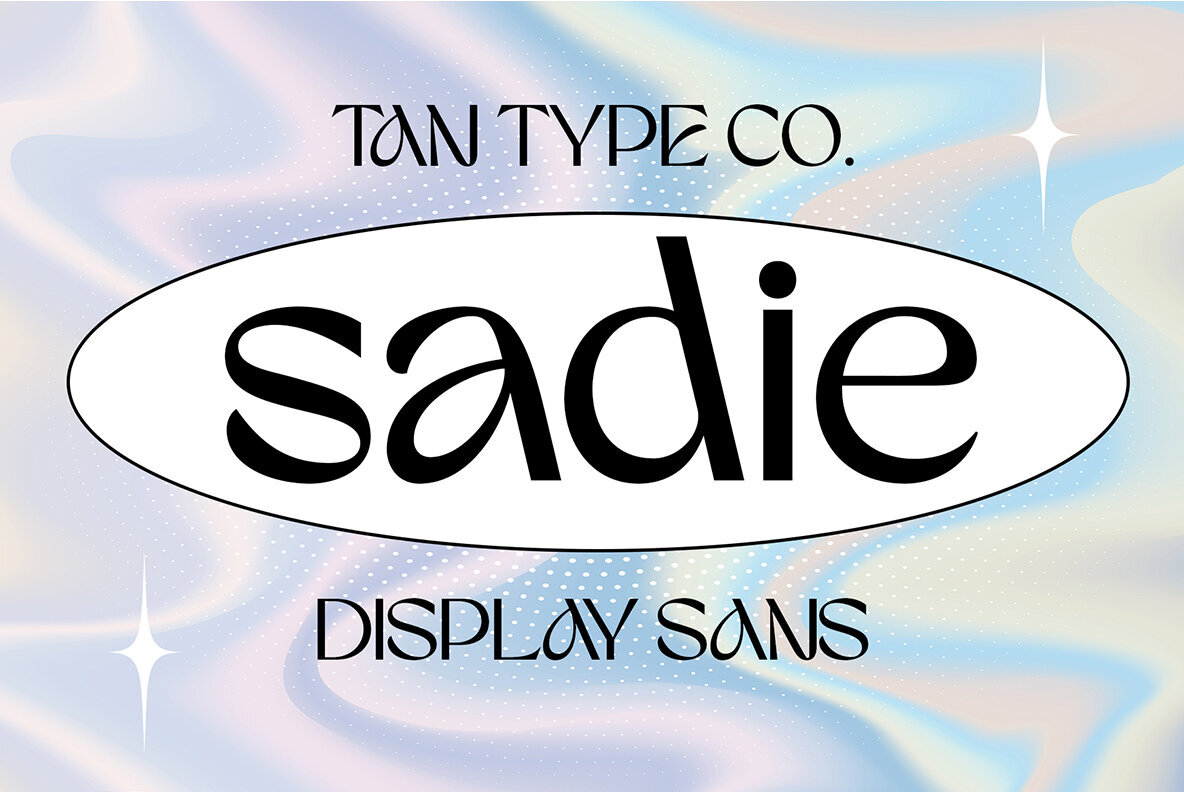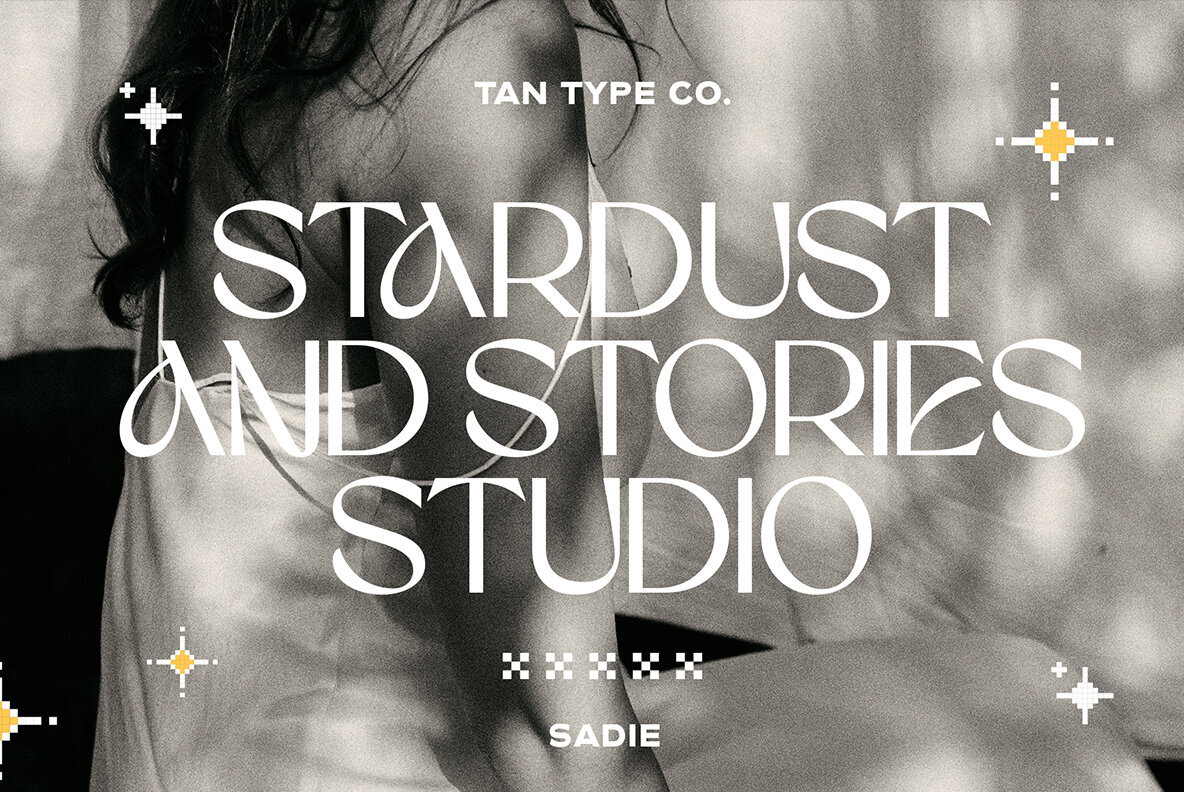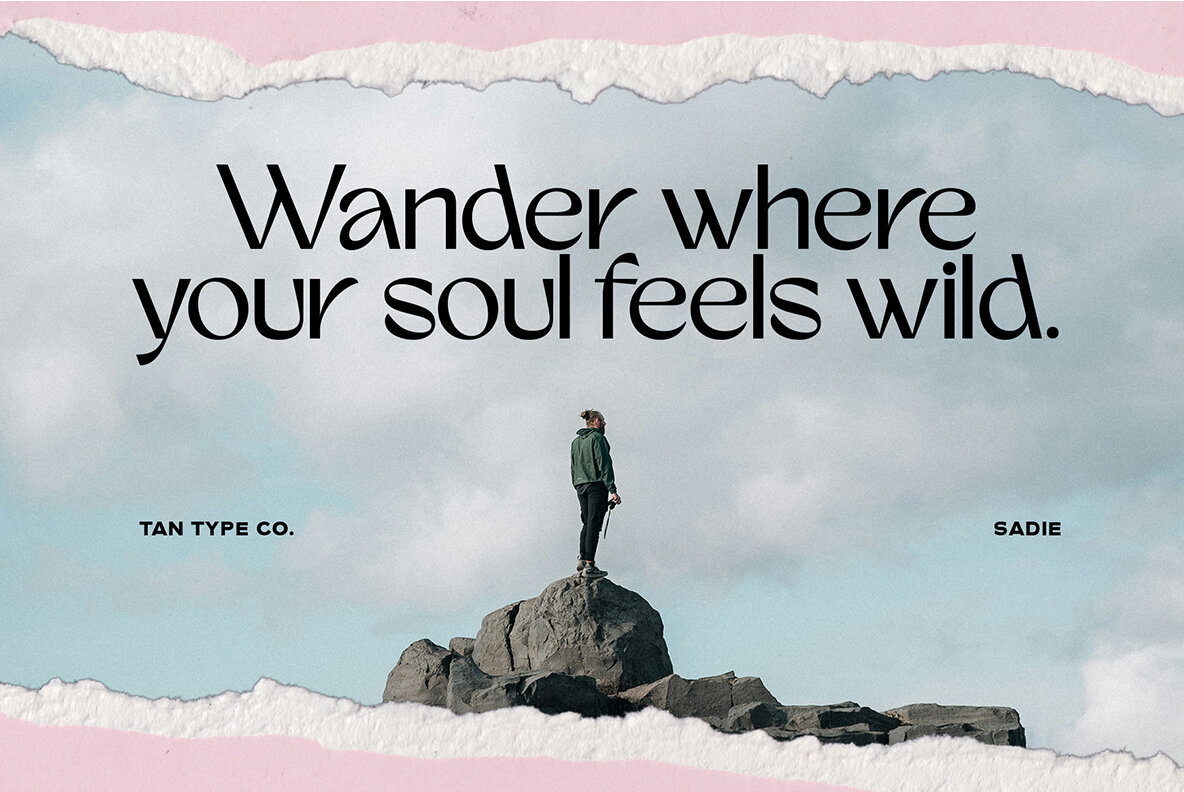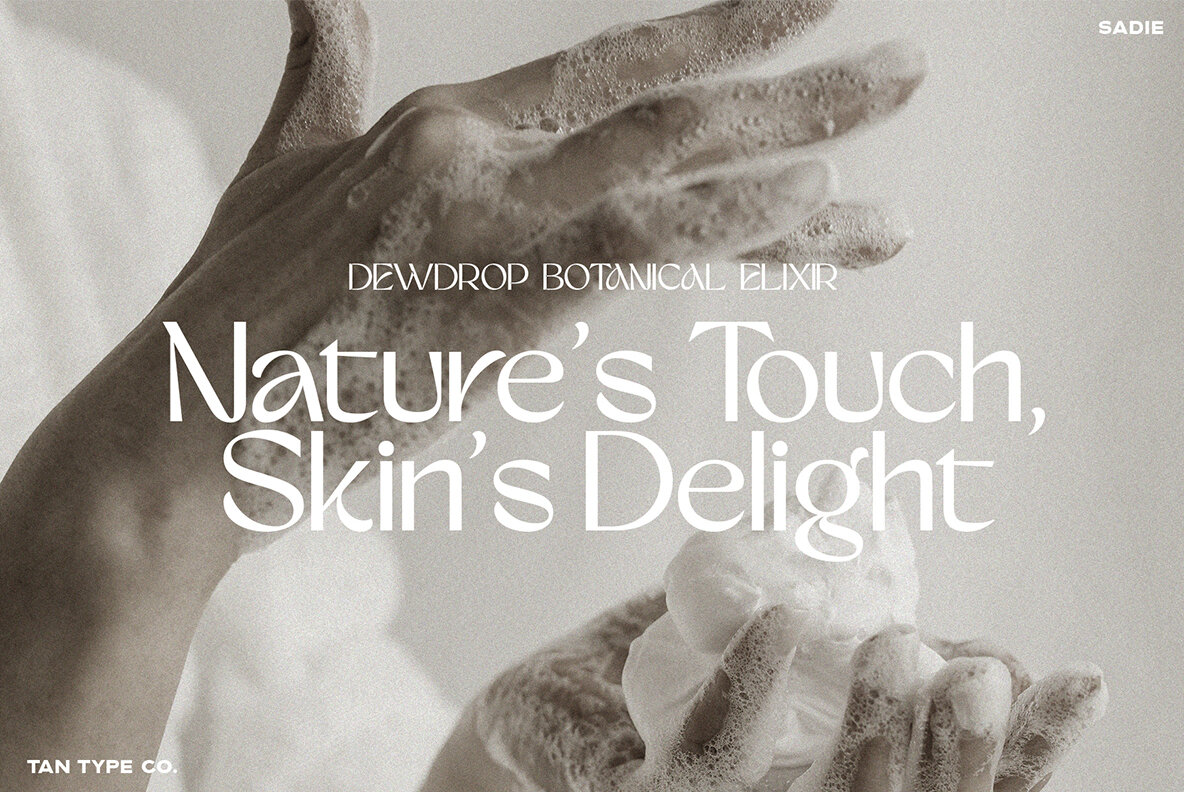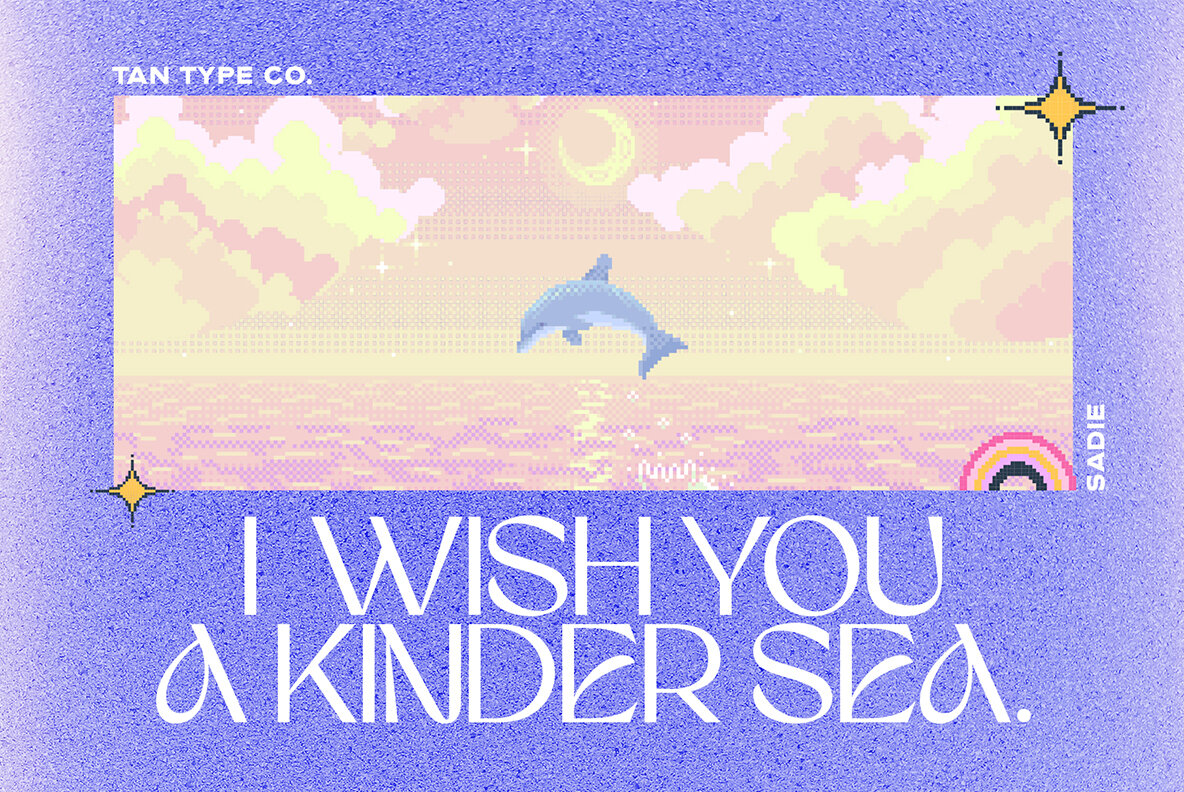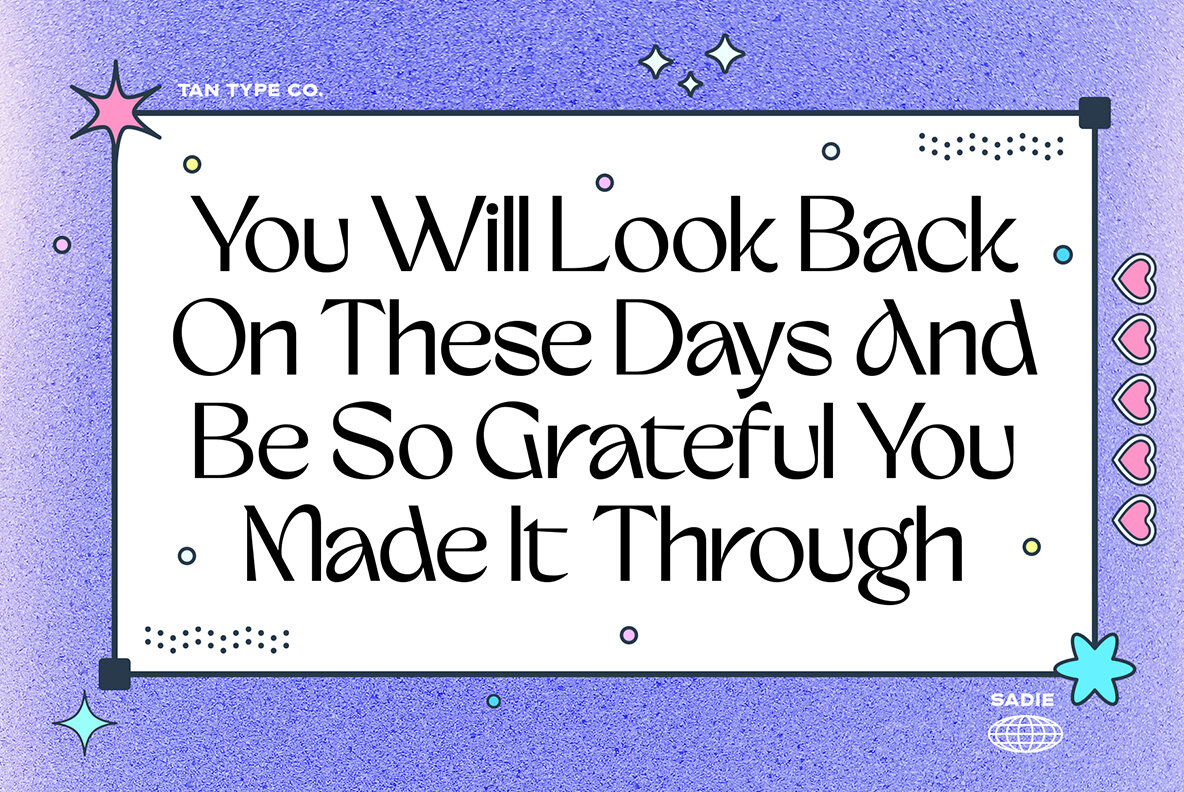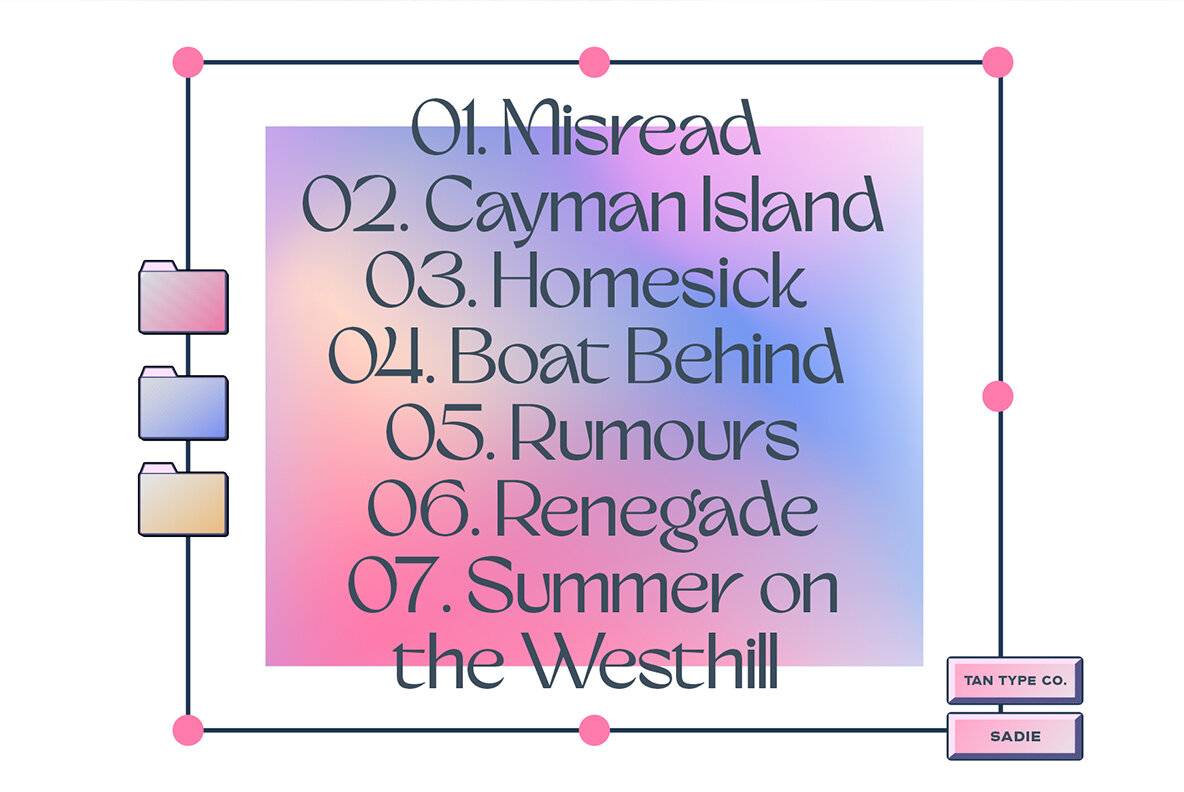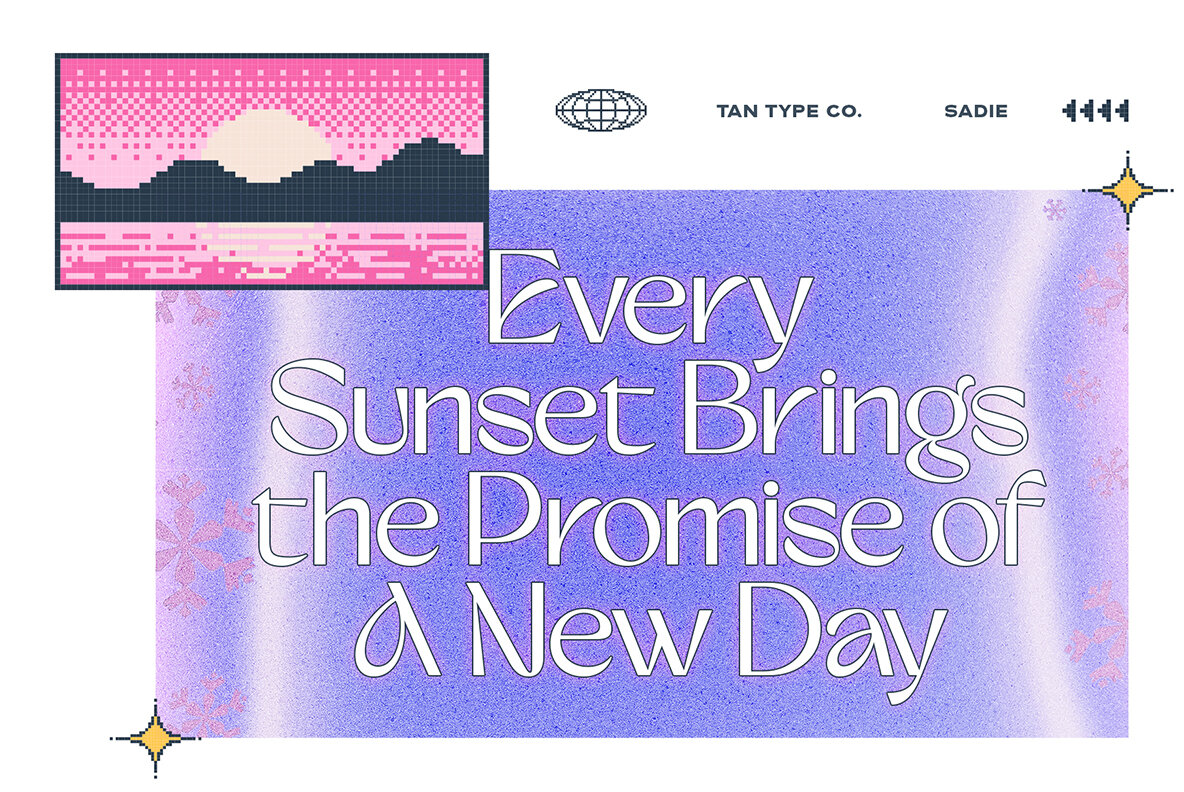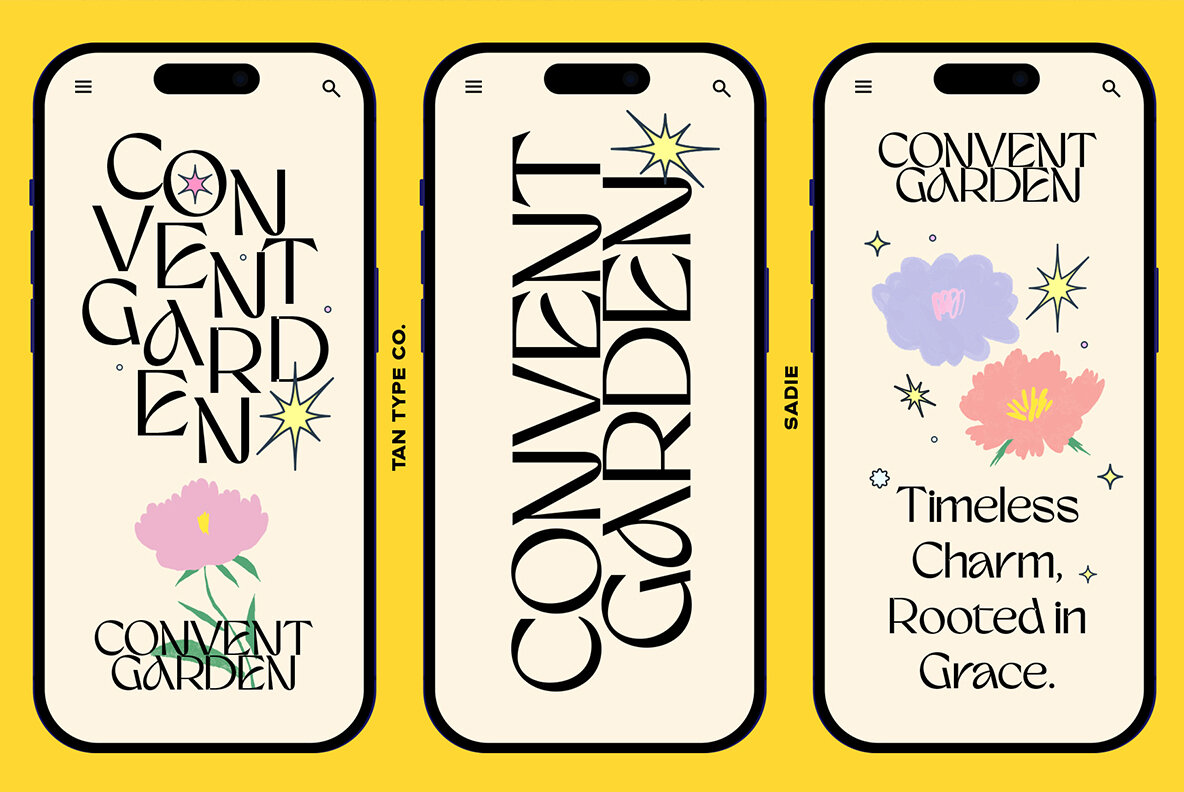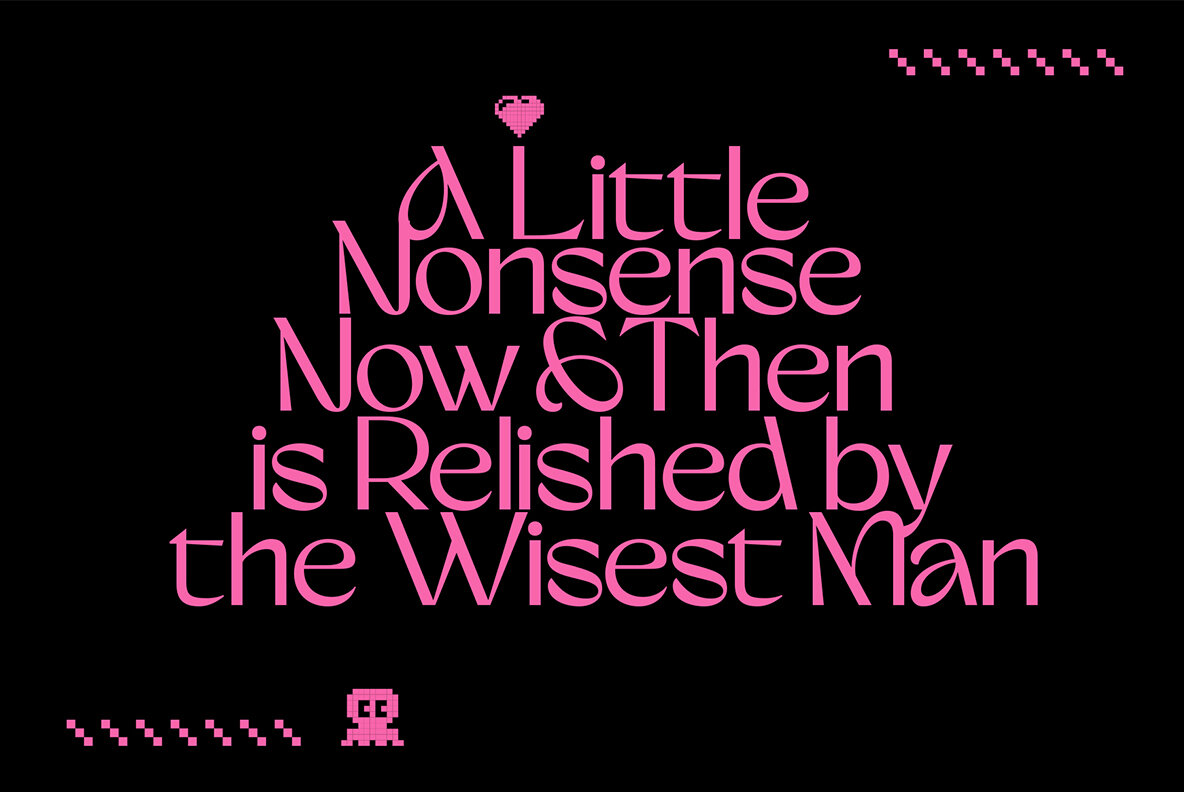
TAN SADIE Font
TAN SADIE Regular
Sadie is a laid-back sans serif font exuding a fresh, clean vibe. Recognized for its simple shapes and smooth lines, it remains remarkably easy to read, with subtle twists adding just the right amount of personality. Ideal for labels, cards, and signs, Sadie offers a neat, friendly look that effortlessly captures the essence of summer—like a cool breeze on a warm day. This font strikes a perfect balance, being neither too fancy nor overly simplistic, with a hint of quirkiness for added charm. Whether crafting by hand or designing digitally, Sadie lends a cheerful touch without overshadowing your creation. Our fonts are compatible with most design software. Ensure your platform supports OpenType fonts to access all ligatures. Please note, while our font functions well in Canva, the platform currently lacks support for advanced OpenType features such as special characters.TAN SADIE: Embrace Laid-back Elegance